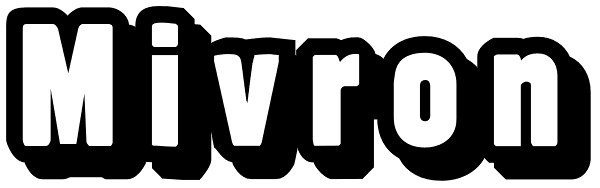
Mivron
Mivron is a stand-out type of sans-serif block text especially suited for headlines and display work. There's a wide range of accented characters making this font appropriate for a wide variety of languages. The zip contains OTF and TTF versions...